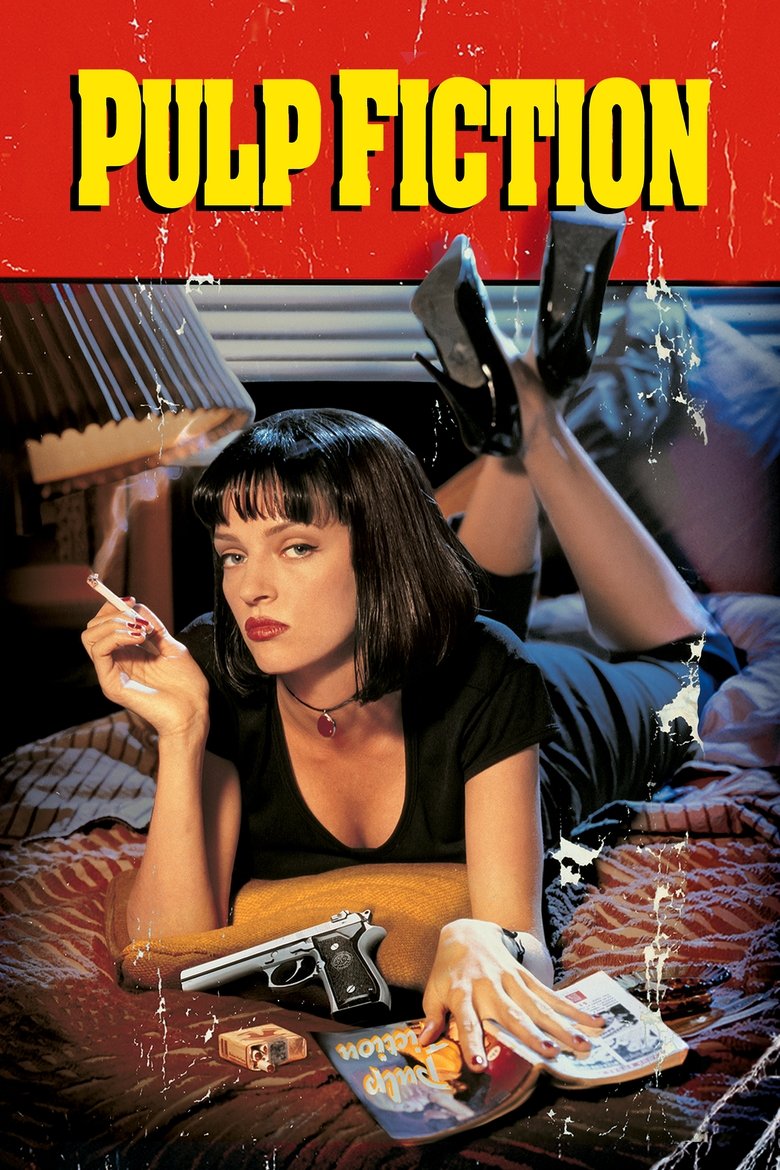
PULP FICTION
About the Pulp Fiction font
Pulp Fiction's poster type is a bold, pulpy display. Anton delivers that same punchy, retro-crime impact.
What font is used in the Pulp Fiction logo?+
The original Pulp Fiction logo uses custom lettering. This generator recreates the look with Anton — a free, open-license font you can style and download.